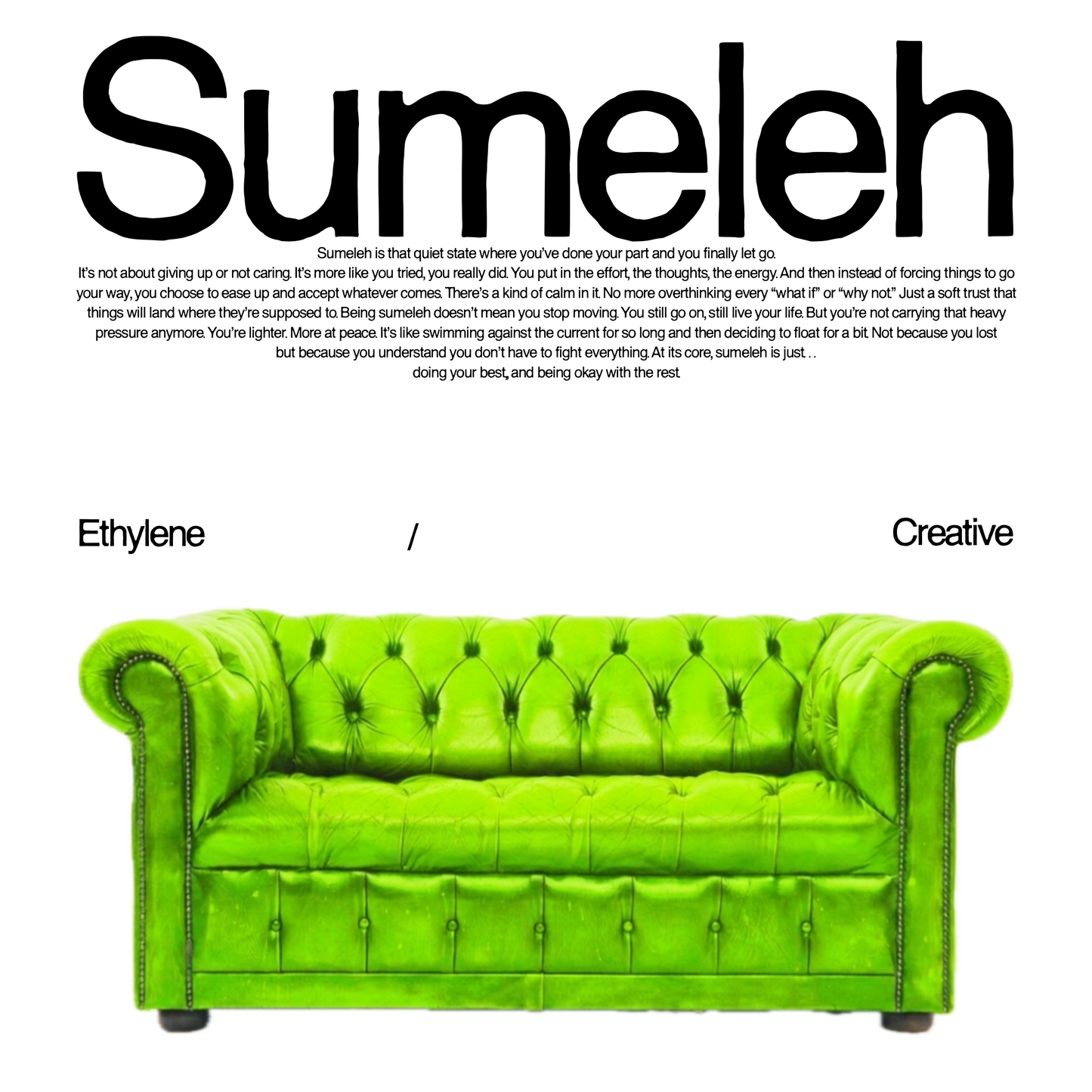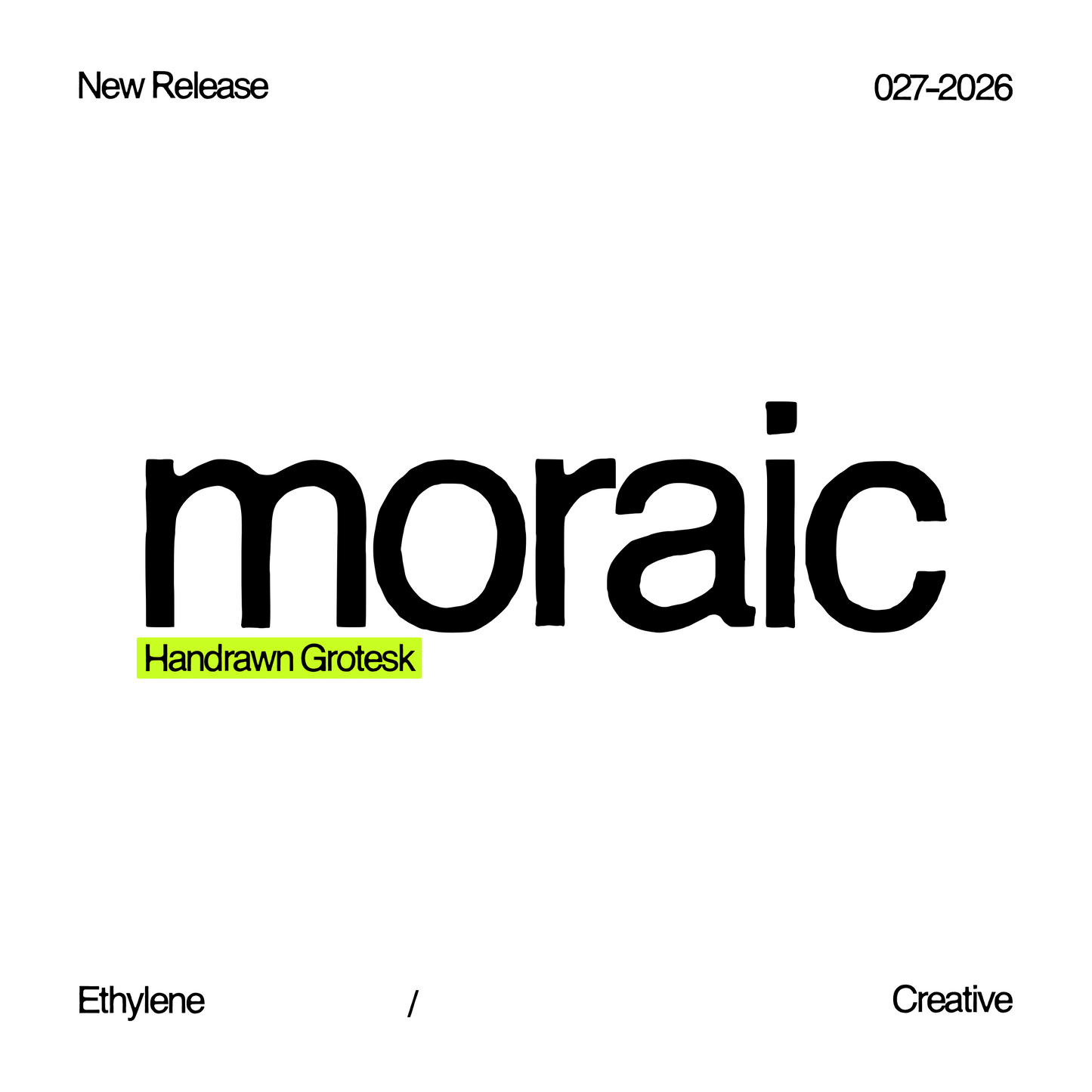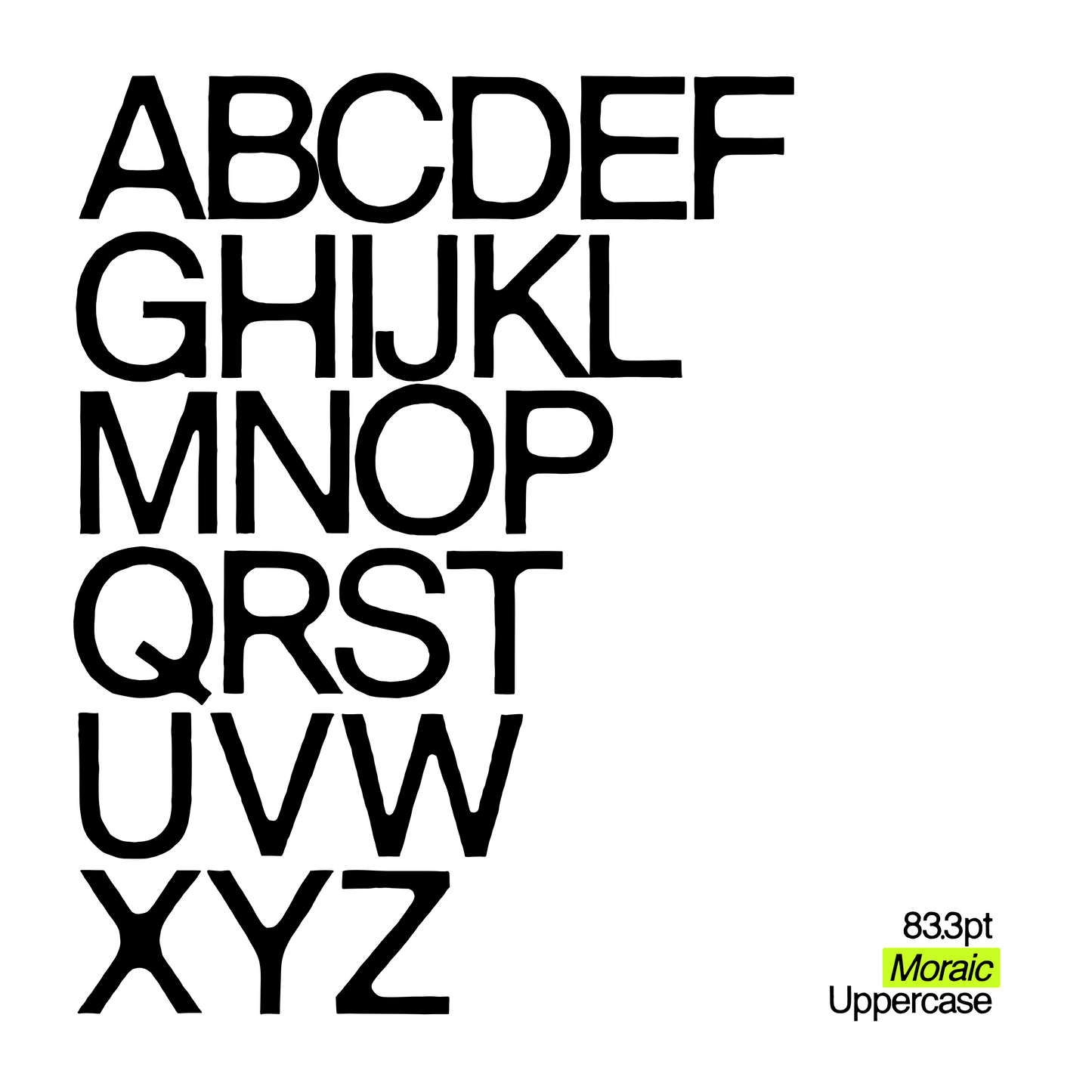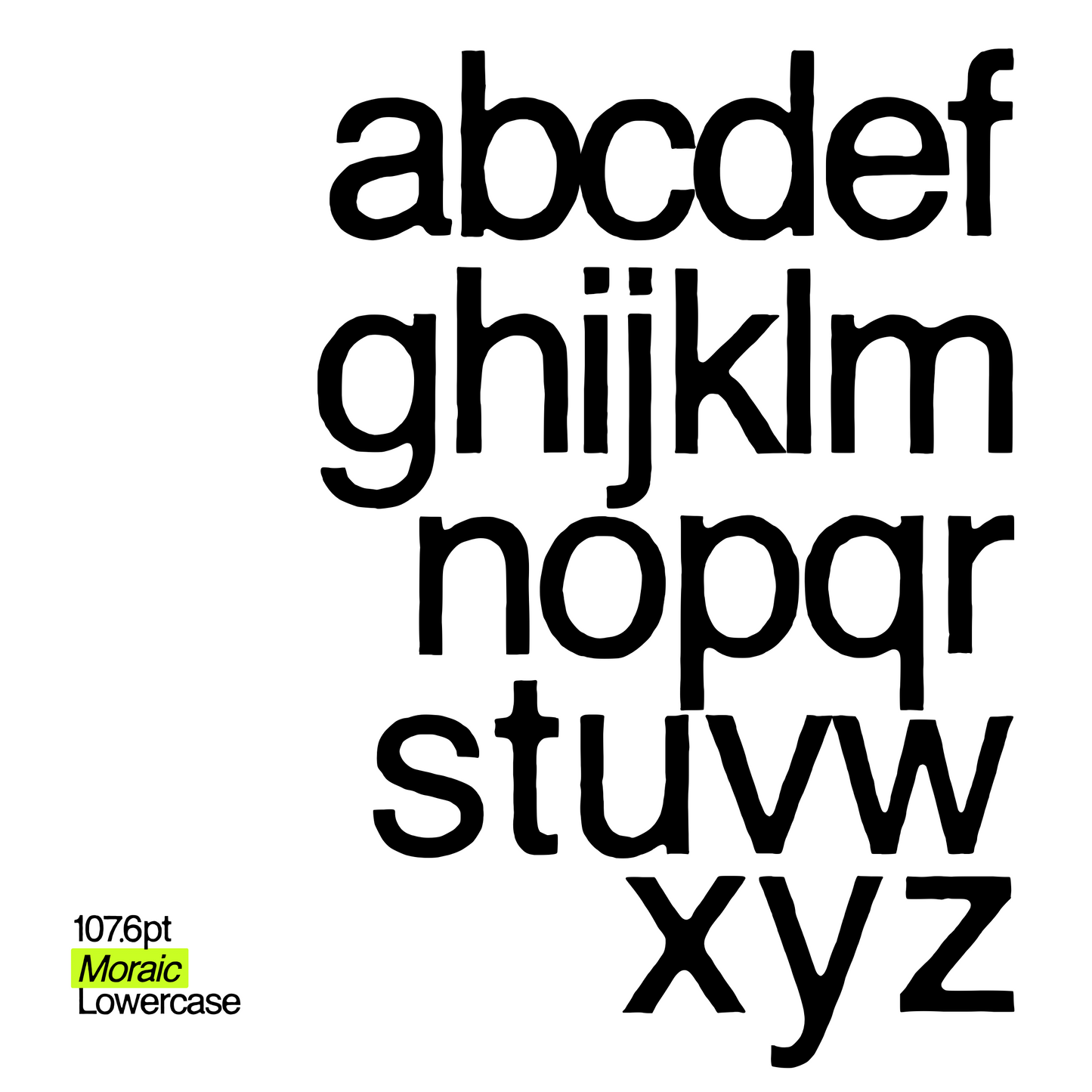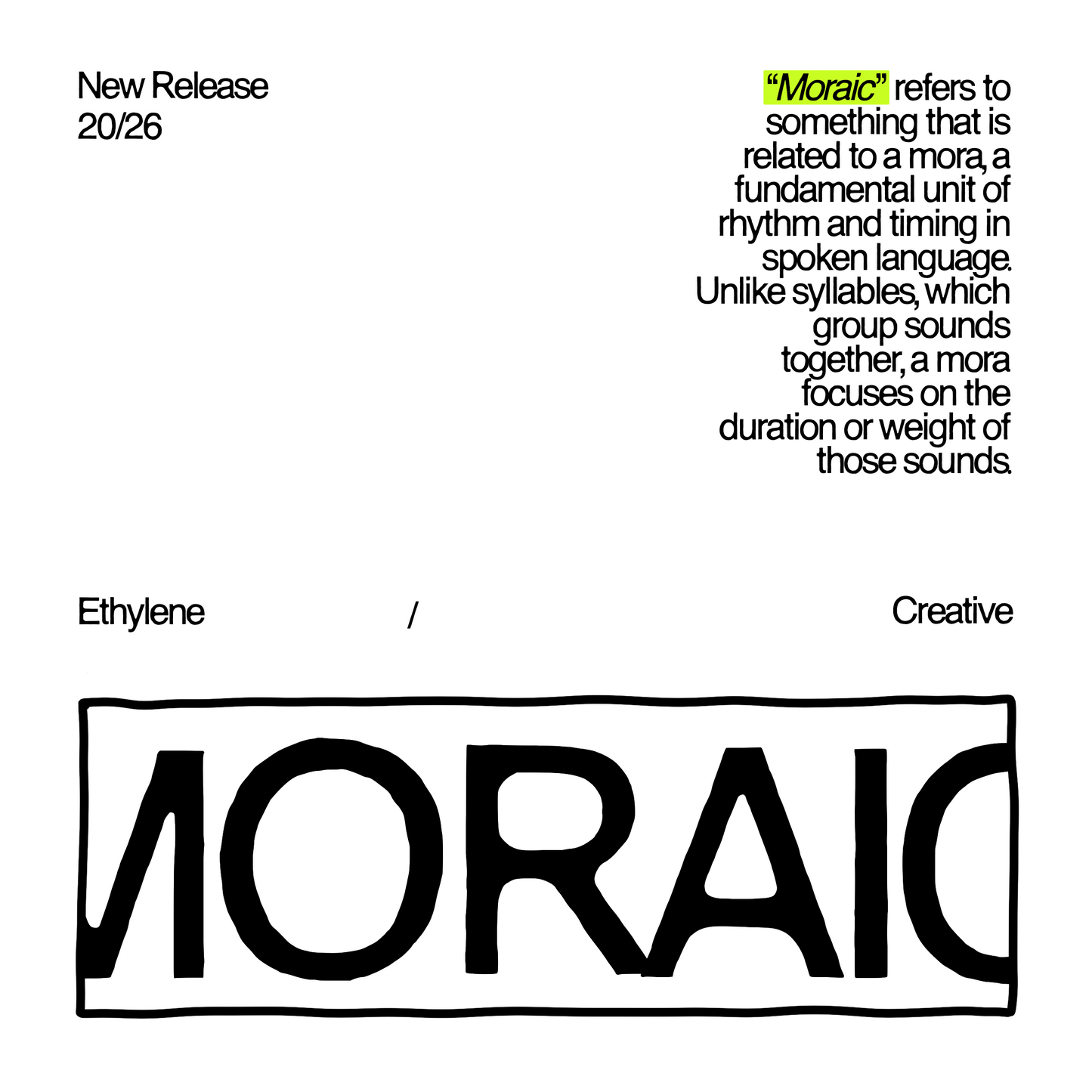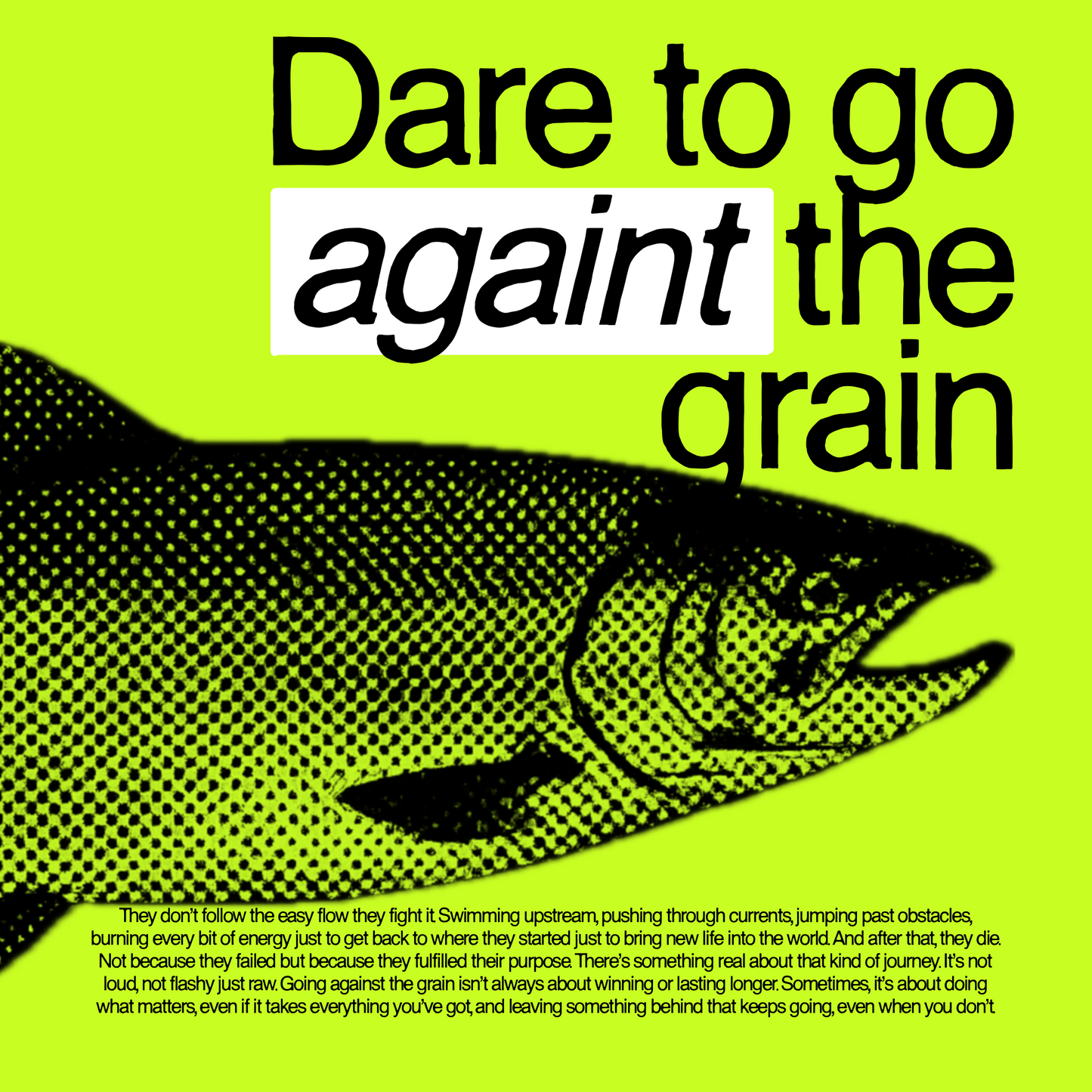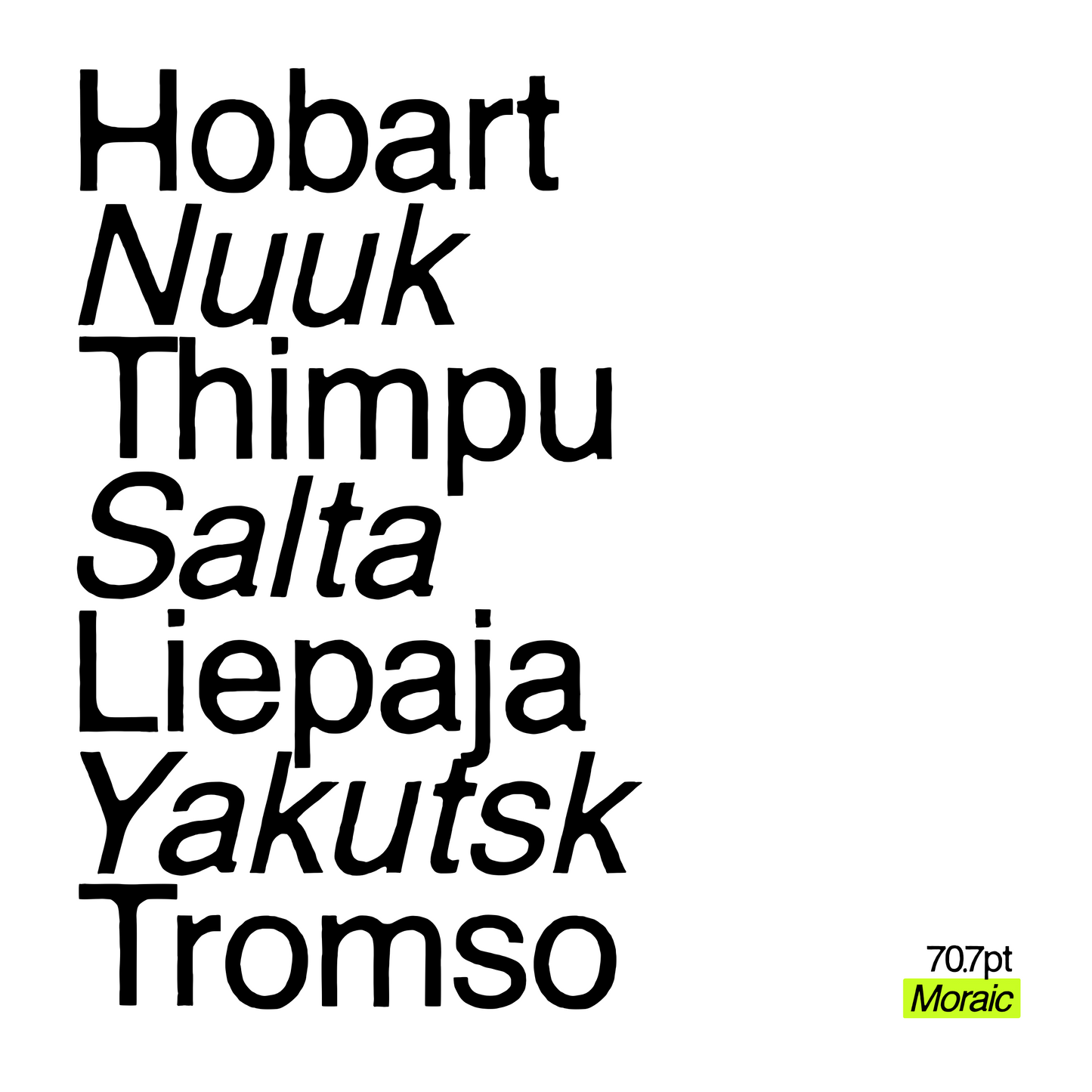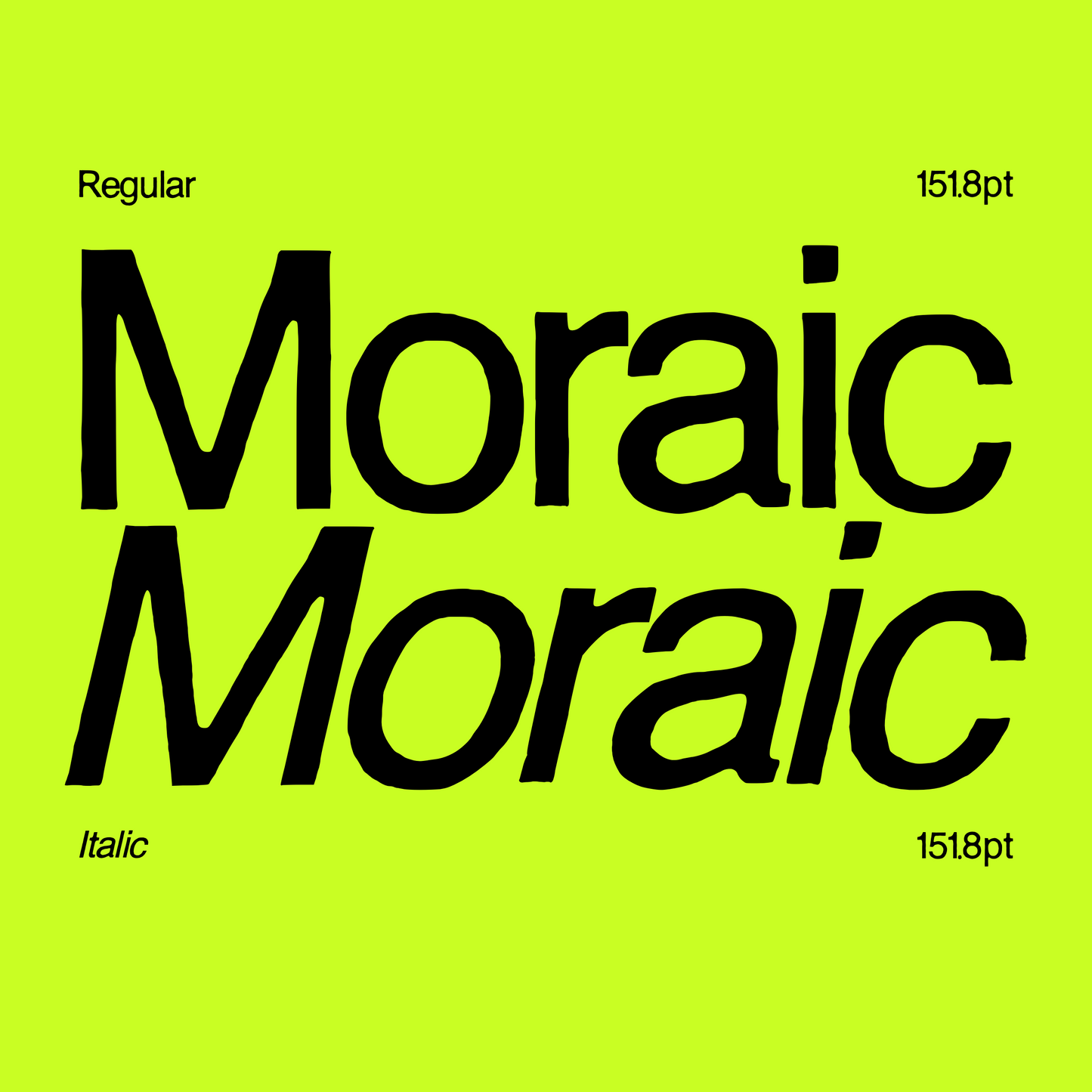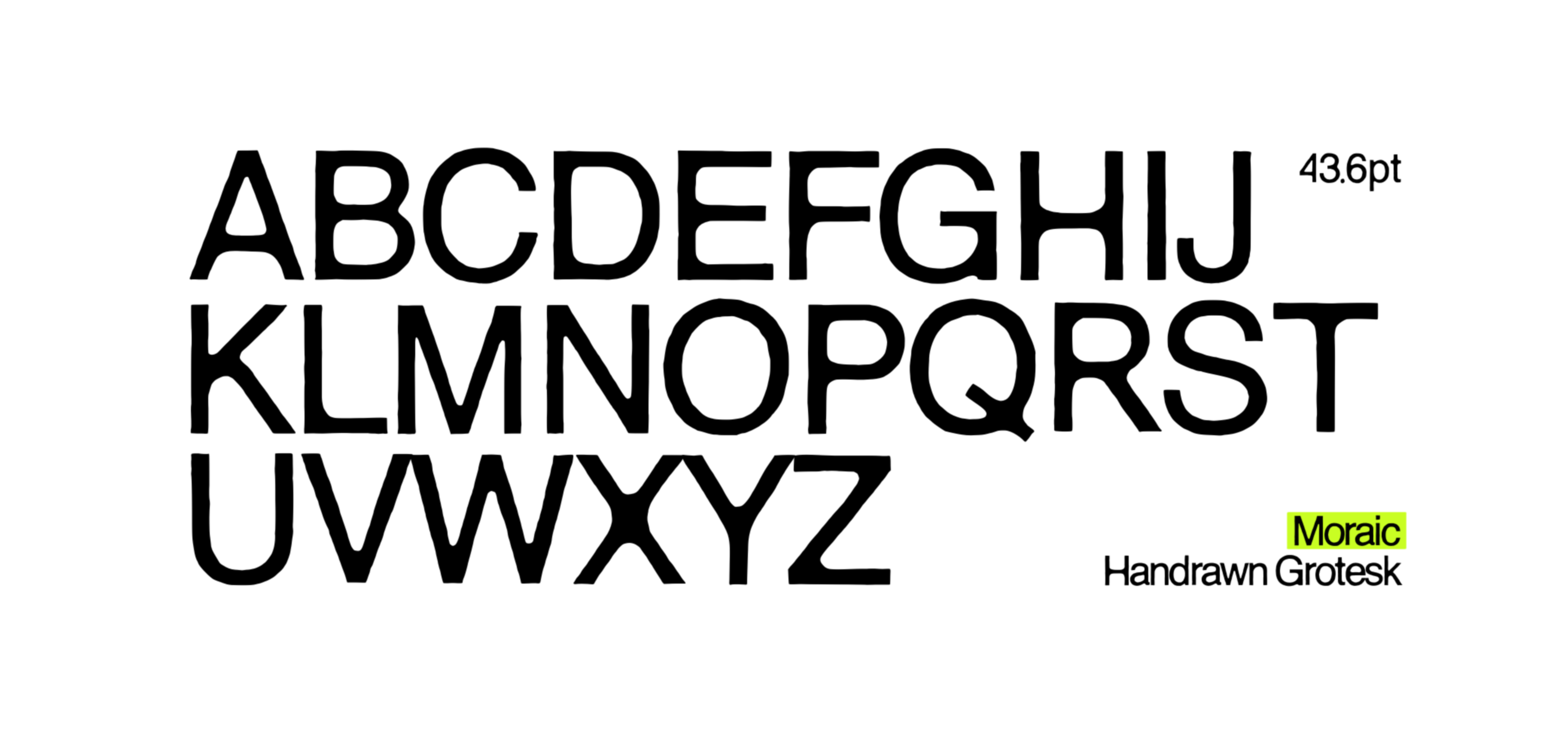
Moraic
Moraic is a handrawn grotesk typeface that blends raw human imperfection with the clean structure of modern sans serif design. Inspired by experimental typography, editorial layouts, and contemporary graphic culture, Moraic delivers a bold yet approachable personality perfect for standout visual communication.
Its slightly uneven strokes and organic curves create a natural handcrafted rhythm while maintaining strong readability.